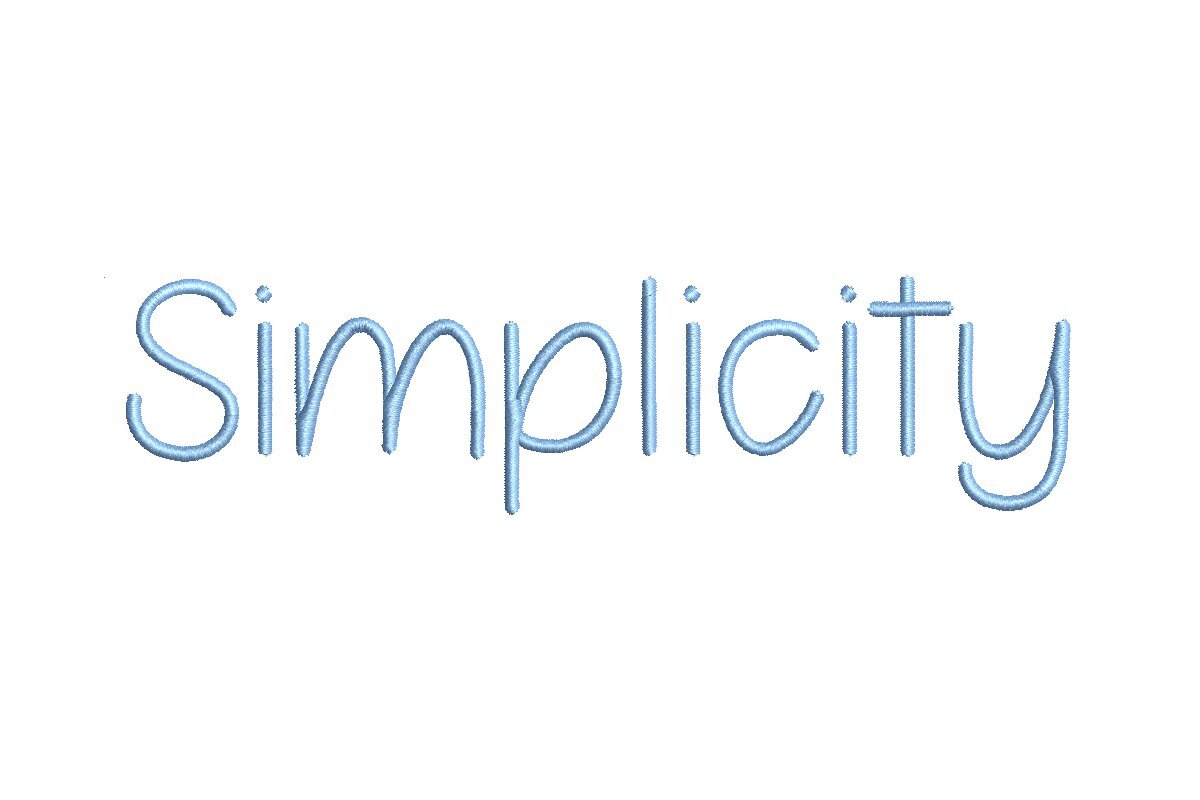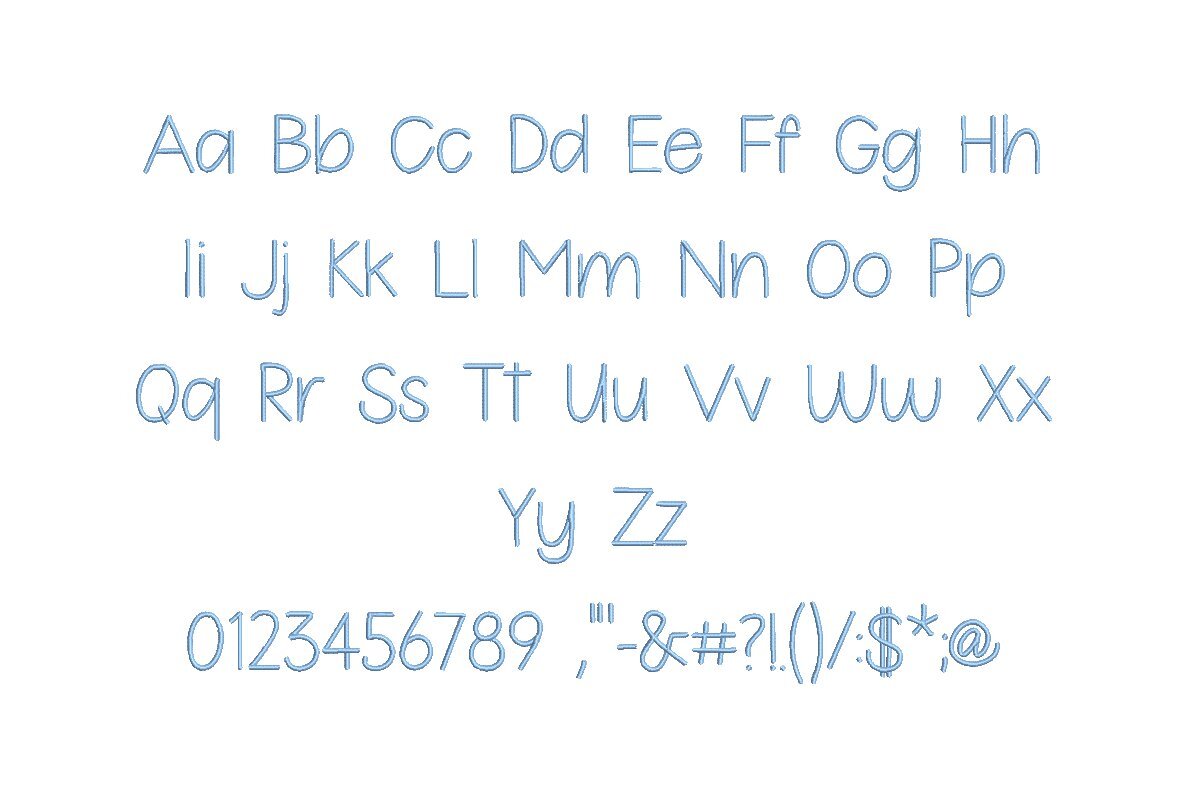
Simplicity ESA Font
Introducing the Simplicity ESA Font - Elegance in Every Stitch!
With a versatile range of customizable characters and impeccable stitch quality, your embroidery projects will radiate sophistication. Bid farewell to design limitations and embrace boundless creative possibilities with the Simplicity ESA Font. It's time to transform your embroidery into a masterpiece of refined beauty. Elevate your artistry today!